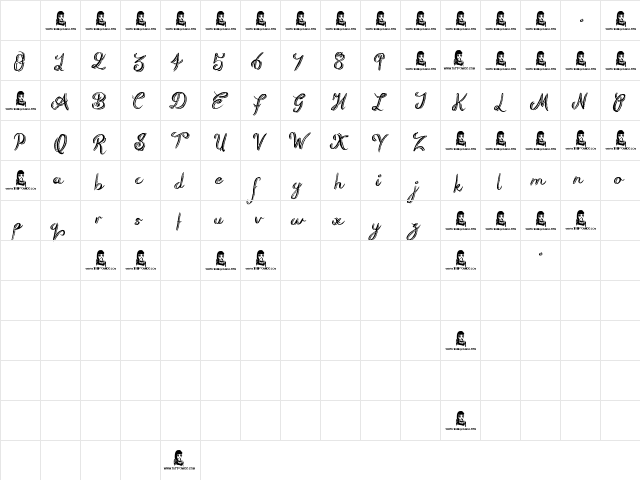
Complete Rough Script Regular glyph index. Displaying only characters natively supported by Rough Script Regular font.
Rough Script embraces imperfection - its rough, textured character adds raw authenticity to designs that want to feel lived-in and unconventional.
Pro Tip: Use Rough Script at larger sizes where the texture and irregularity of each letterform can be clearly seen - it loses its character at small sizes.